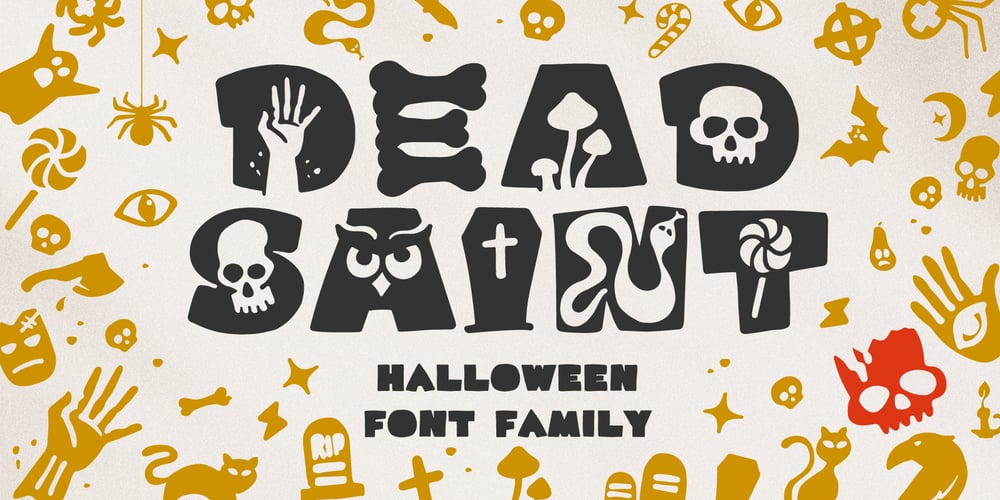
Dead Saint Font Family was designed by Roman Korolev and published by Kaer. Dead Saint contains 2 styles and family package options. Hi there! Are you ready for 2021 Halloween?This is a Dead Saint font family (regular and icons styles). Hand-drawn font with a Halloween famous metaphors pattern. Perfect for your party posters, cards, invitations, apparel prints, and much more! What you’ll get: Uppercase symbols font Numbers and symbols Multilingual support and alternative symbols Thanks! Feel free to request to add characters you need: kaer.pro@gmail.com